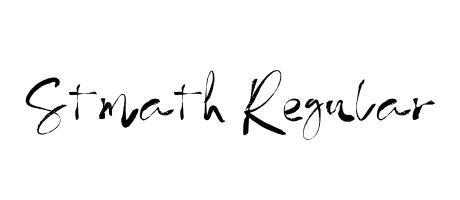
Stmath
Stmath Regular is a flowing, handwritten-style script font. Its characters are connected and possess a natural, slightly erratic rhythm. The strokes are varied in thickness, giving it an organic feel. It leans towards a casual, yet elegant aesthetic, ideal for logos, branding, or handwritten-style text. The overall impression is one of effortless charm and personality.